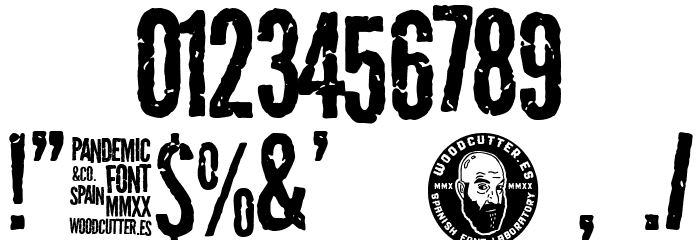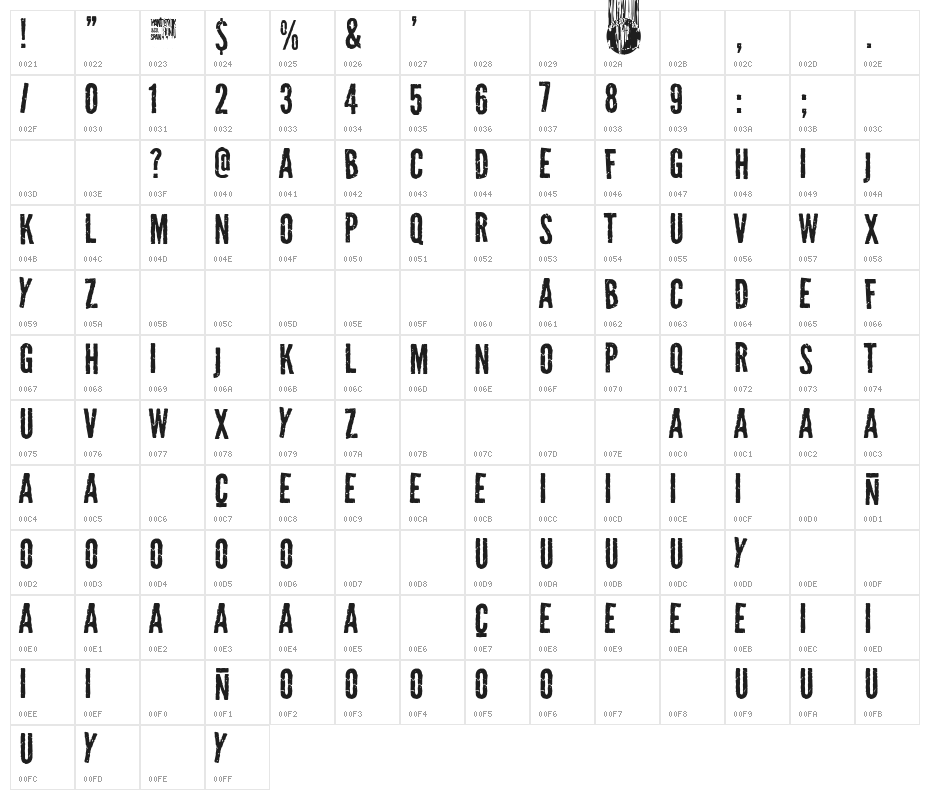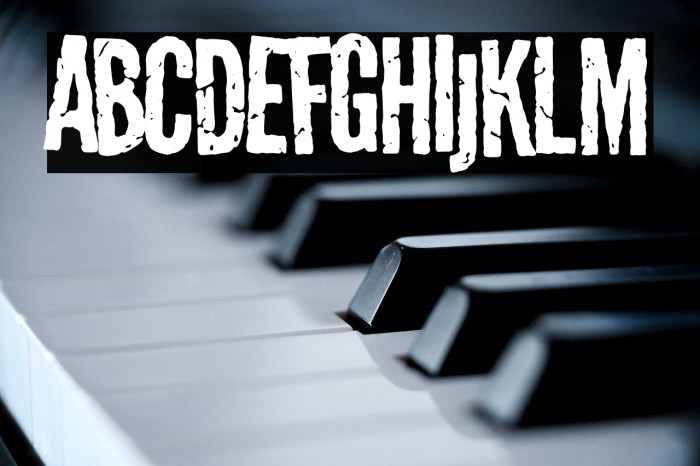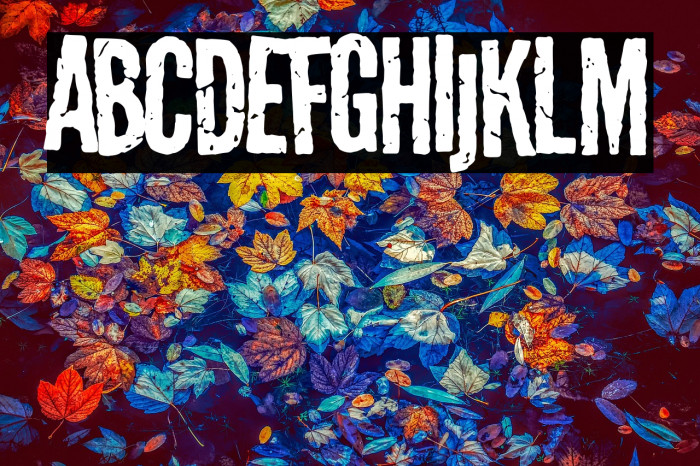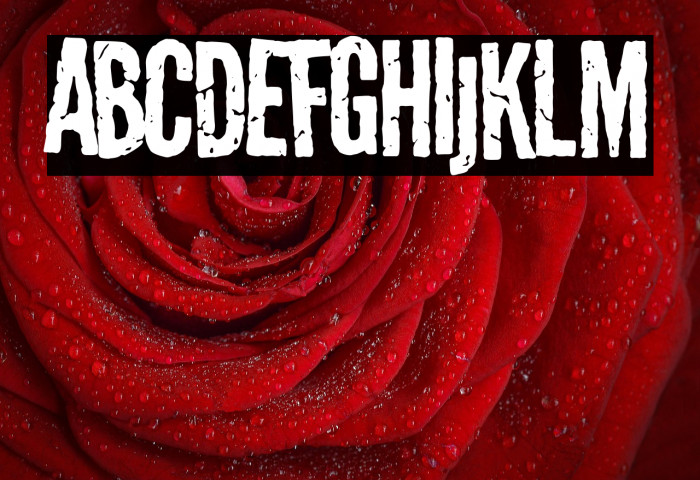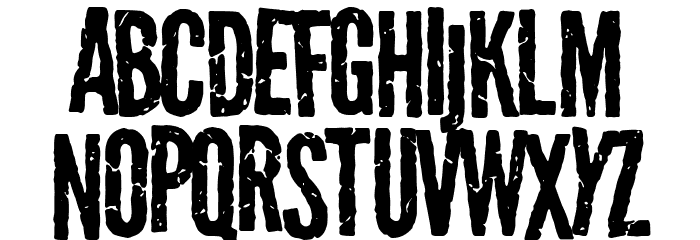
Pandemic&co Font
Pandemic&co Description
This font features a bold, distressed style with a rugged, textured appearance that evokes a sense of vintage and grunge aesthetics. The uppercase letters are prominent and slightly irregular, giving a hand-crafted feel. The numbers and special characters maintain the same distressed look, ensuring consistency across all glyphs. The font's rough edges and uneven strokes contribute to its unique character, making it stand out in any design. Its bold presence and distinctive style make it suitable for projects that require a strong visual impact.